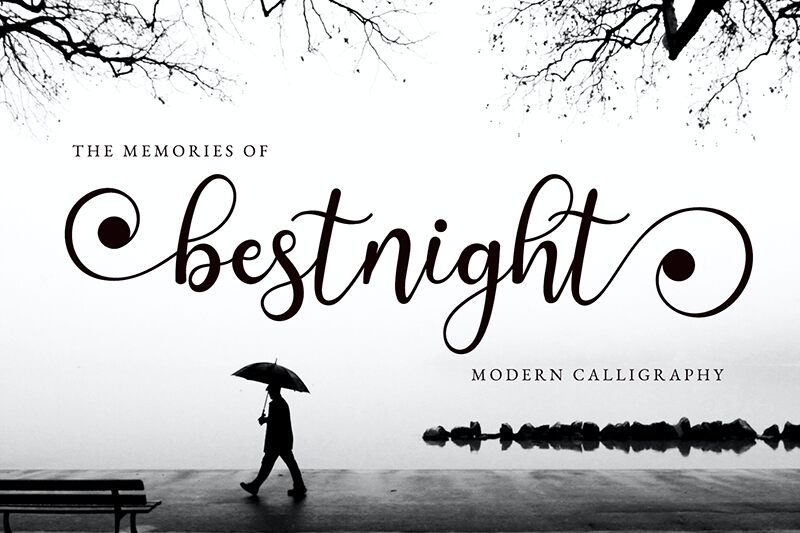
Bestnight
Bestnight font by Airotype Studio is an elegant calligraphy font with a cursive script style and decorative flair. Its fluid movement offers a modern appeal perfect for any creative project. Being free, it allows designers to explore their ideas without limitations and boundaries.
Exploit this gem in book covers, movie titles, website headers, advertising posters, magazine spreads, social media posts, branding projects, packaging designs, apparel items printing or postcard designing.